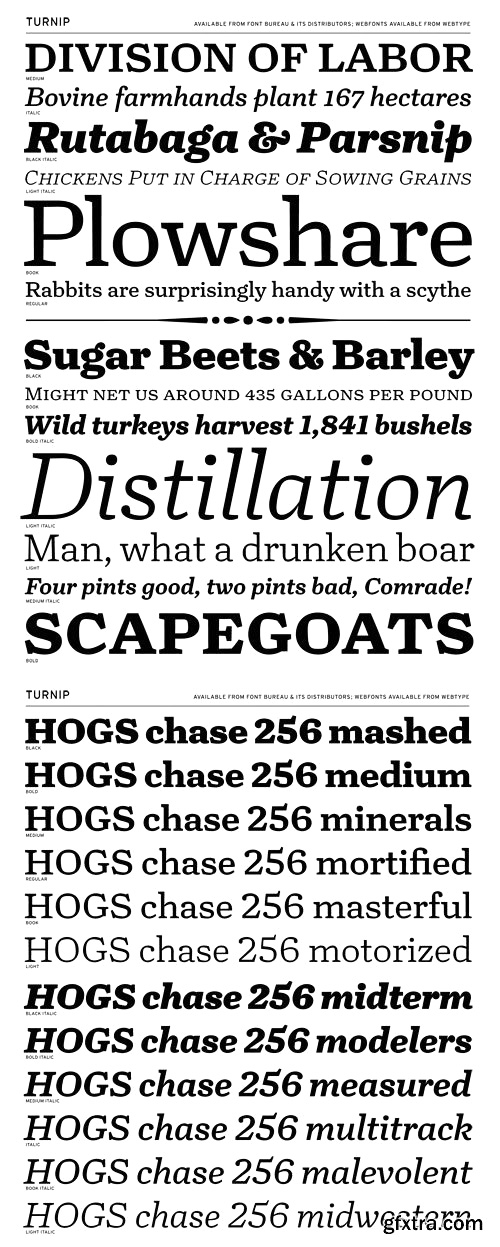
- Where classic serif faces are urbane and well-mannered, Turnip is coarse and down-to-earth — the kind of type that feels completely at home with salty language. David Jonathan Ross crafted an energetic tension between Turnip’s inner and outer shapes to give it vigor, while strong strokes and sturdy serifs yield dense paragraphs with a horizontal emphasis. This ain’t your grandpa’s book face, but it reads just as well!